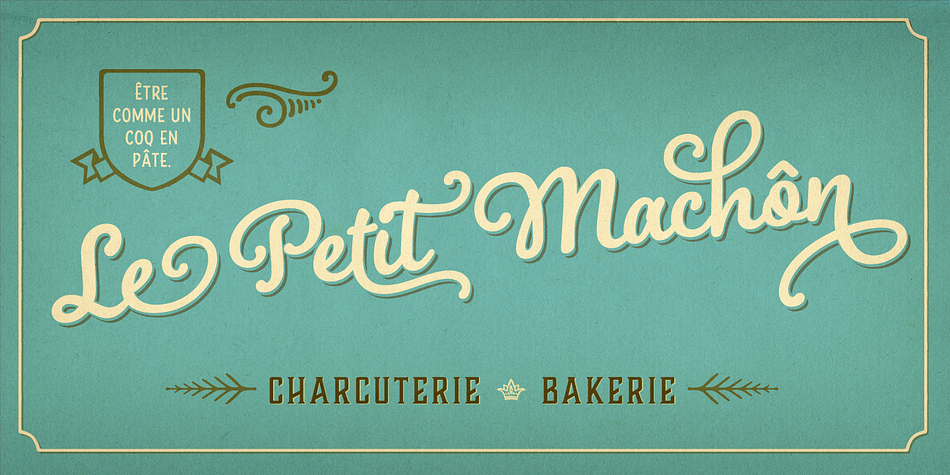
Boucherie Cursive is a brush script font family. This typeface has two styles and was published by Laura Worthington.
Boucherie Cursive is part of the Boucherie Collection – a series of 16 distinct, yet related typefaces.
A friendly mononline script that suggests the careful penmanship of a boutique owner – or, with the swash variants, a practiced calligrapher.